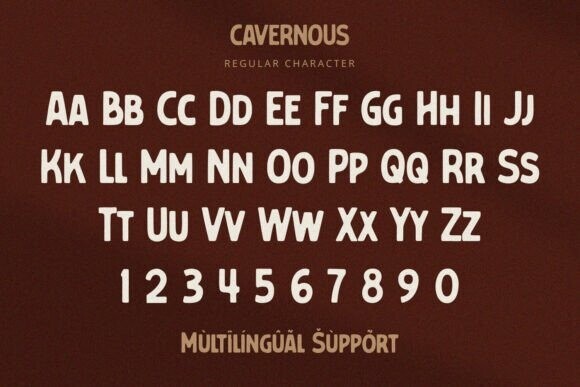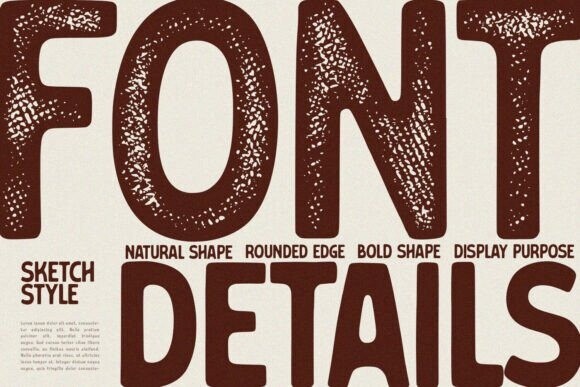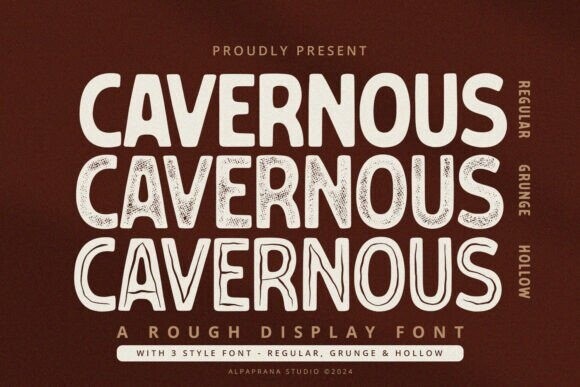
Cavernous Font
Cavernous Font is a rough display font with unique and classic feels. It will be perfectly used for magazine, packaging, posters, shopping bags, t-shirts, book covers, photography, special events and other design projects.